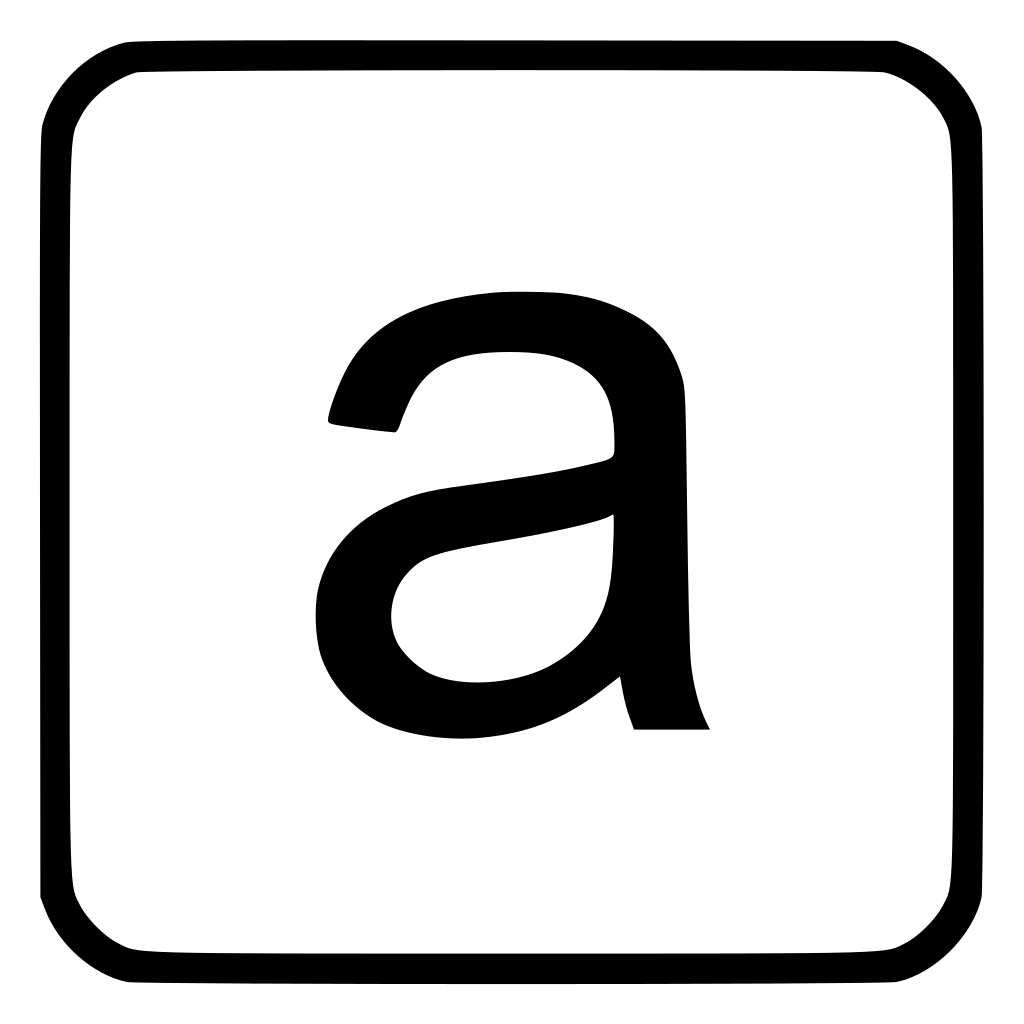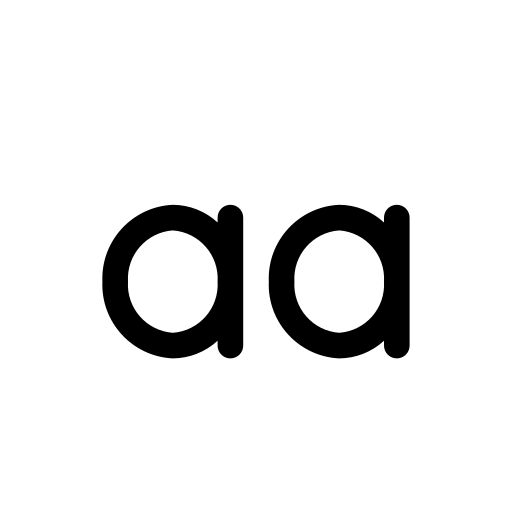
Awasome Lowercase A Fonts 2022. Use this embroidery font to write names, dates, or quotes on any fabric you wish. Font field guide creative character:
Use this embroidery font to. You’ll find lowercase variants in this all caps display font such as a, e, and n. Above you see the titles of most of the fonts i found, but it is hard to decide if they are great with just a title.
A heavyweight font with somewhat of a masculine — almost industrial — sort of appeal. Lower case font lettering generator this text font was made using instafonts.io. About second grader font lowercase a to i embroidery design.
Font Field Guide Creative Character:
Basic latin, extended latin, diacritics, and basic punctuation are included. Yay for being able to use a font that is cute and model for students! The small letters, which were used far more often than the capitals, were placed for convenience lower and closer to the typesetter:
In The Lowercase E, The Counter Is Called The Eye.
Fonts marked * also have a loopy ‘k’. Use this embroidery font to write names, dates, or quotes on any. Corner somewhat related to the negative space in counters, a corner is an angle, as opposed to an area, of white.
Front The Mix Of Rounded Spurs And Traditional Serifs To The Flattened Loop On The Lowercase “G,” This Font Has Enough Unexpected Features To Lend A Distinctive Feel To Designs.